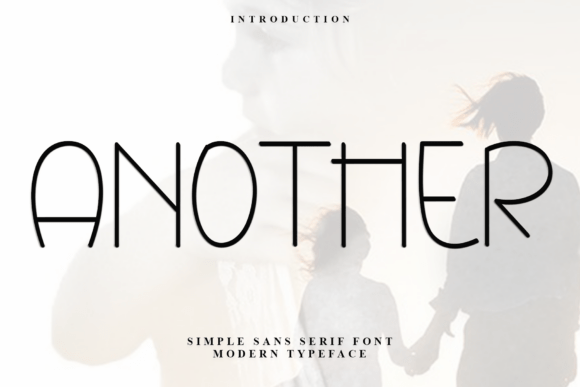
The Font that Stole My Heart: A Deep Dive into Another Font
I’ll never forget the day I stumbled upon Another Font while working on a project for a client’s wedding invitation. I had spent hours scouring the internet for the perfect font, but nothing seemed quite right. That was until I saw Another Font – its sweet and friendly vibe instantly caught my attention, and I knew I had found the one. In this article, I’ll share my love for Another Font, its unique features, and how to make the most of it in your designs.
My Honest Review of Another Font
- ✨ Its natural and unique style makes it incredibly versatile for a wide range of designs.
- ✅ The font’s friendly vibe is perfect for projects that require a personal touch, such as wedding invitations, greeting cards, or children’s books.
- 💡 Another Font’s subtle imperfections give it a charming, handmade feel that’s hard to find in digital fonts.
While Another Font is an amazing addition to any design project, there are a few things to keep in mind:
- ⚠️ Some of the font’s characters may appear a bit narrow, so be mindful of spacing when using it for body text.
- 🤔 The font’s limited set of OpenType features might not be suitable for projects that require advanced typographic control.
The Story Behind Another Font
Another Font was designed with the intention of creating a friendly and approachable typeface that would be suitable for a wide range of design projects. Its creator aimed to craft a font that would feel both natural and unique, with a subtle handmade quality that would set it apart from other digital fonts.
Q: What type of projects is Another Font best suited for?
A: Another Font is incredibly versatile and can be used for a wide range of projects, including wedding invitations, greeting cards, children’s books, and more.
Q: Does Another Font come with any OpenType features?
A: Another Font has a limited set of OpenType features, but it does include some basic glyphs and stylistic alternates.